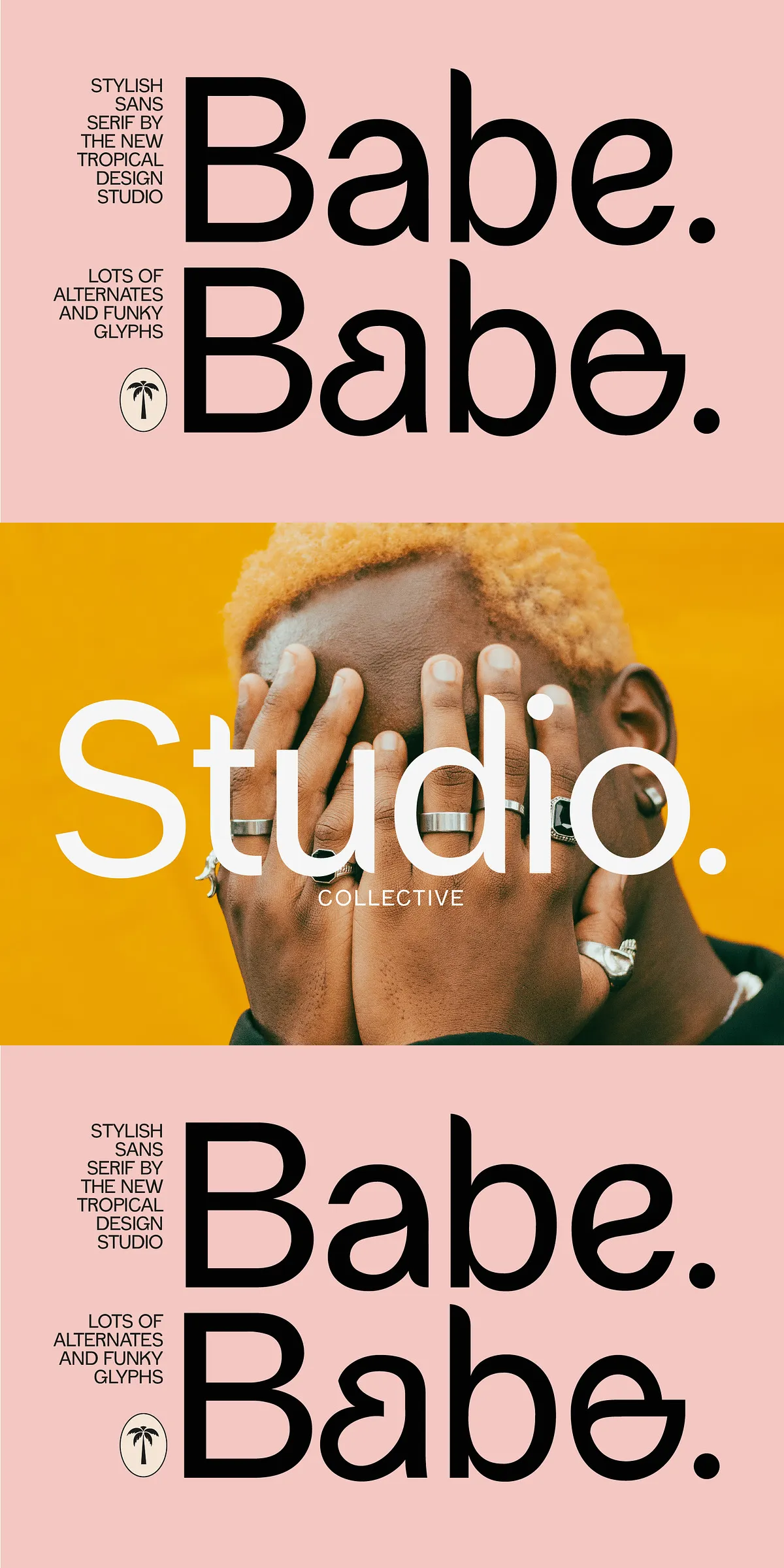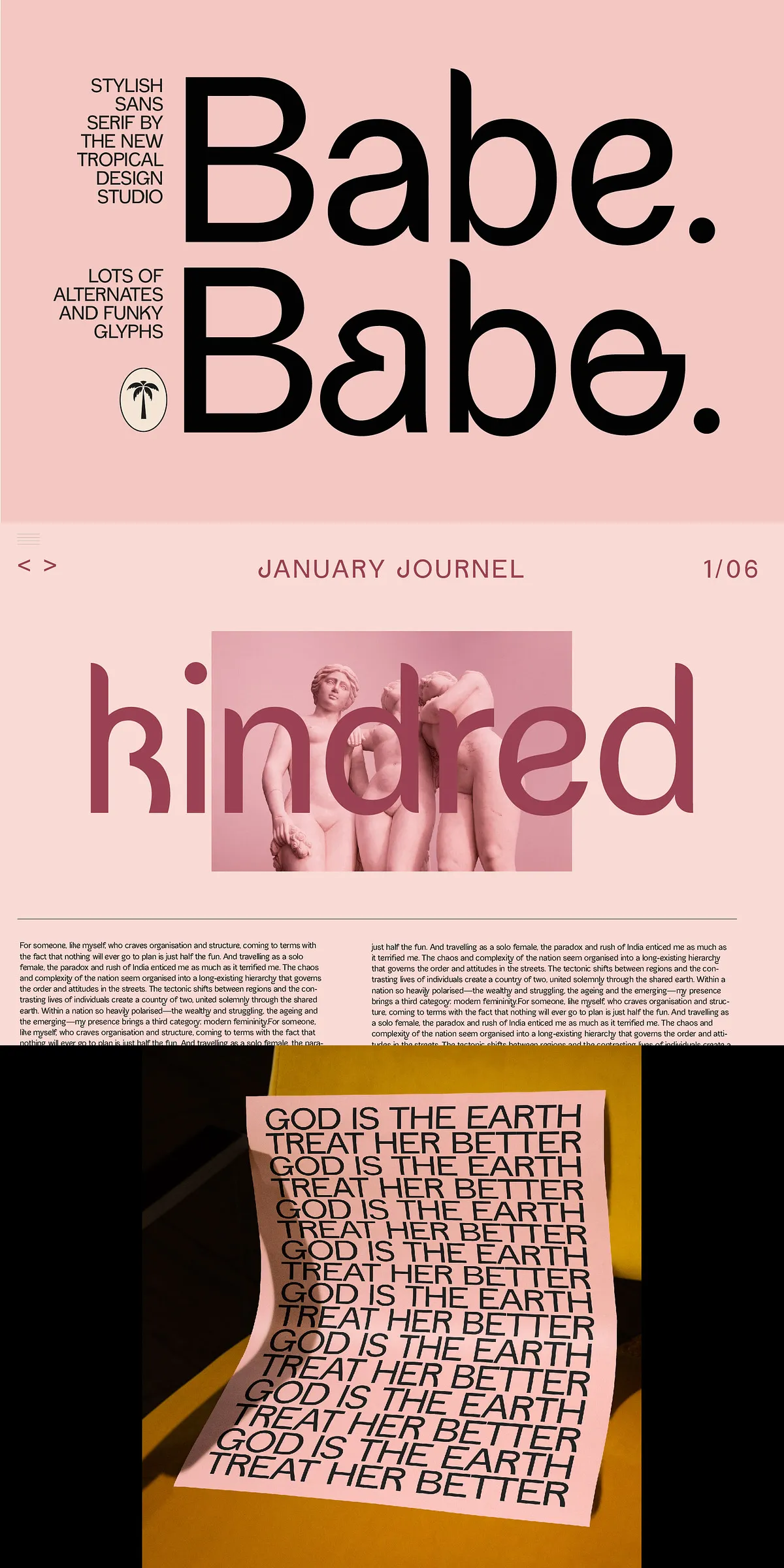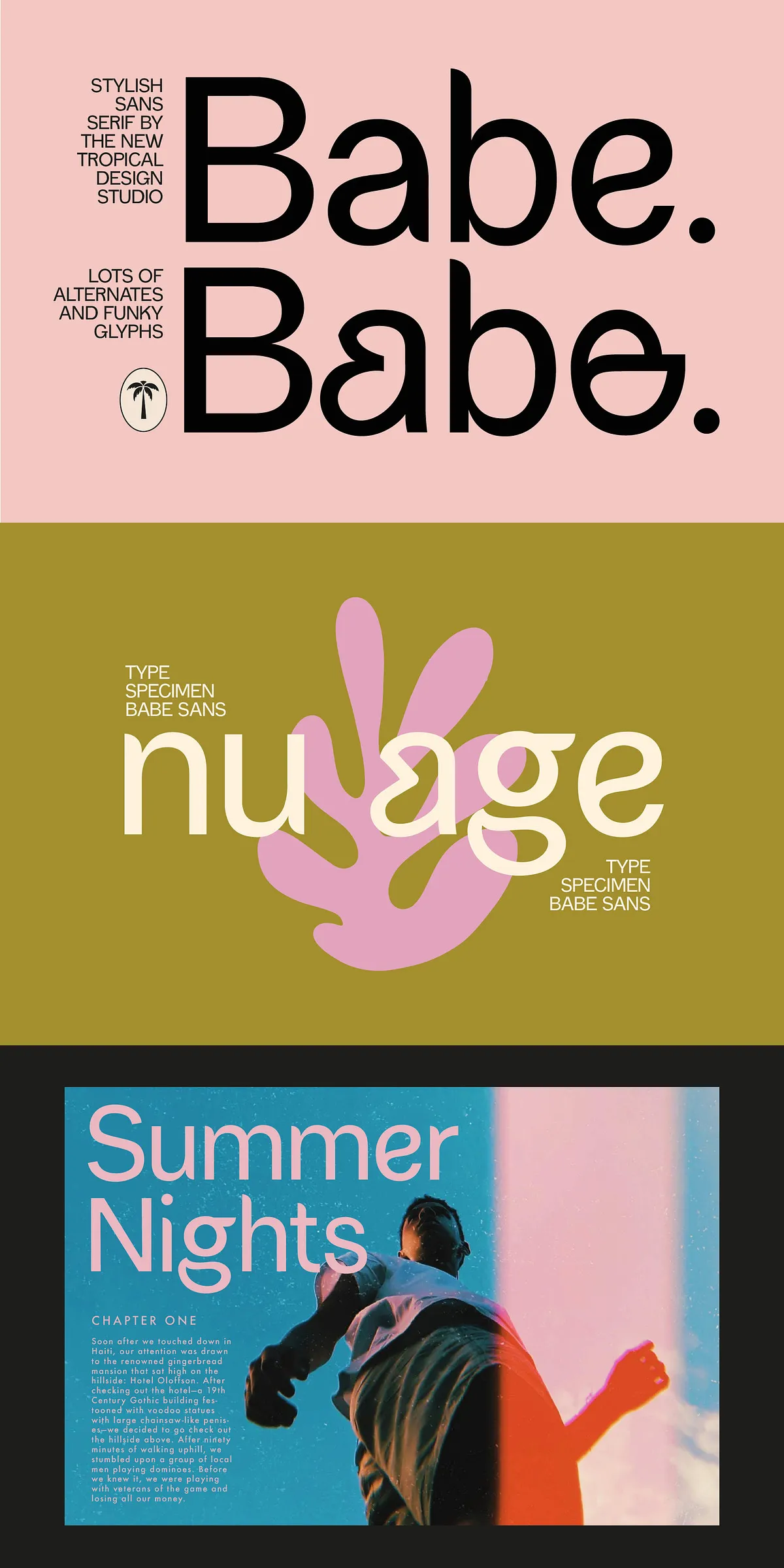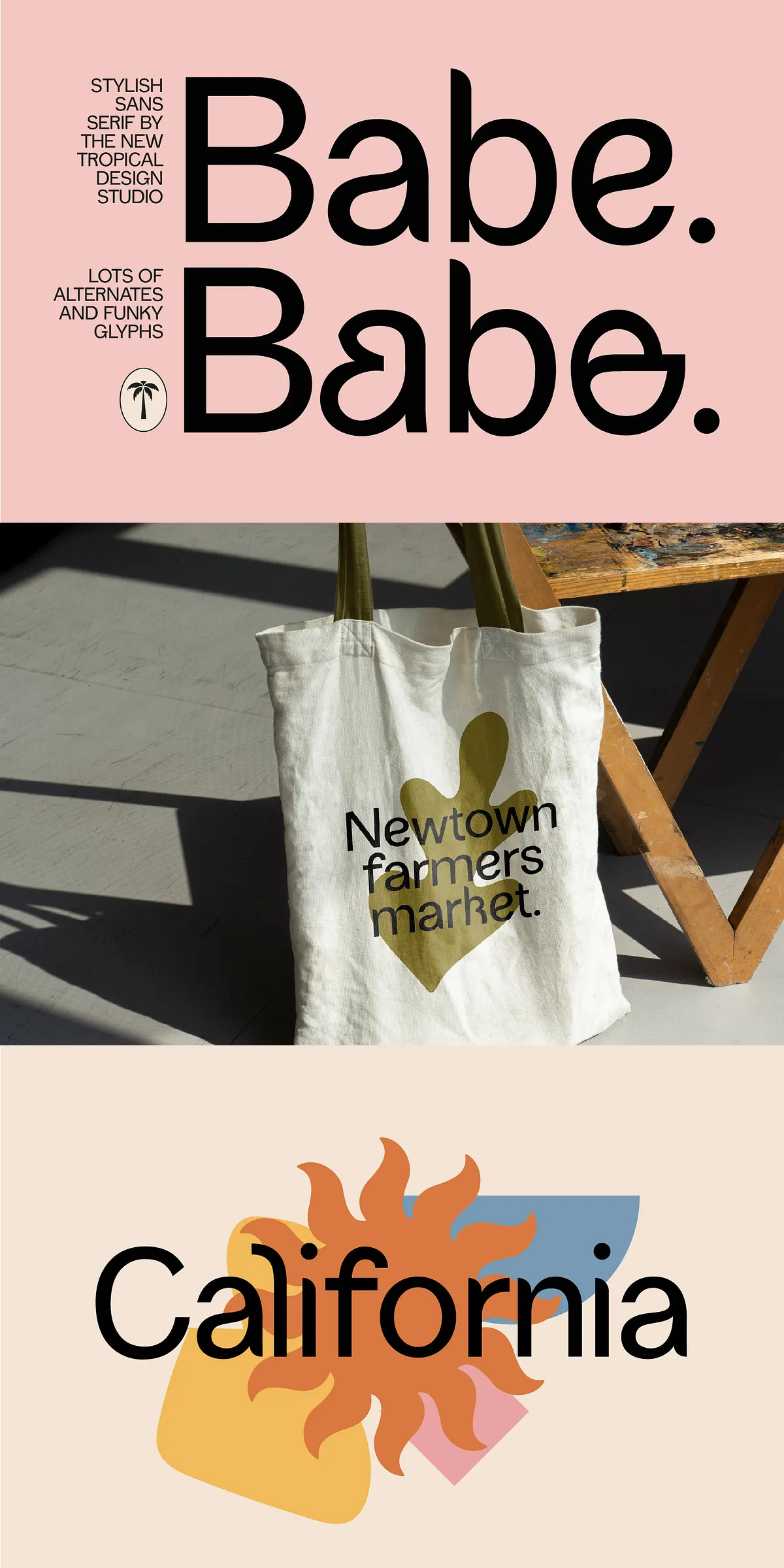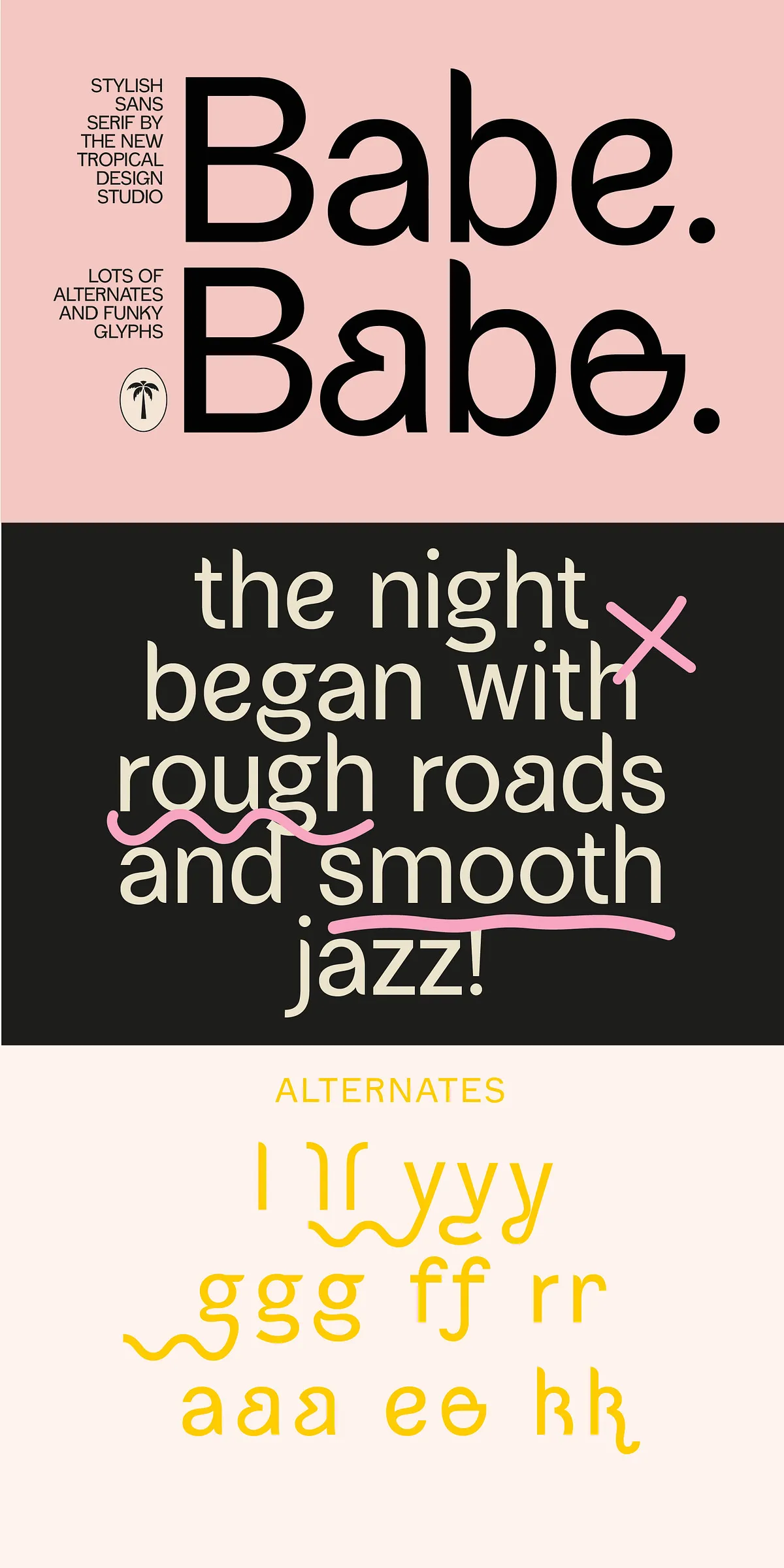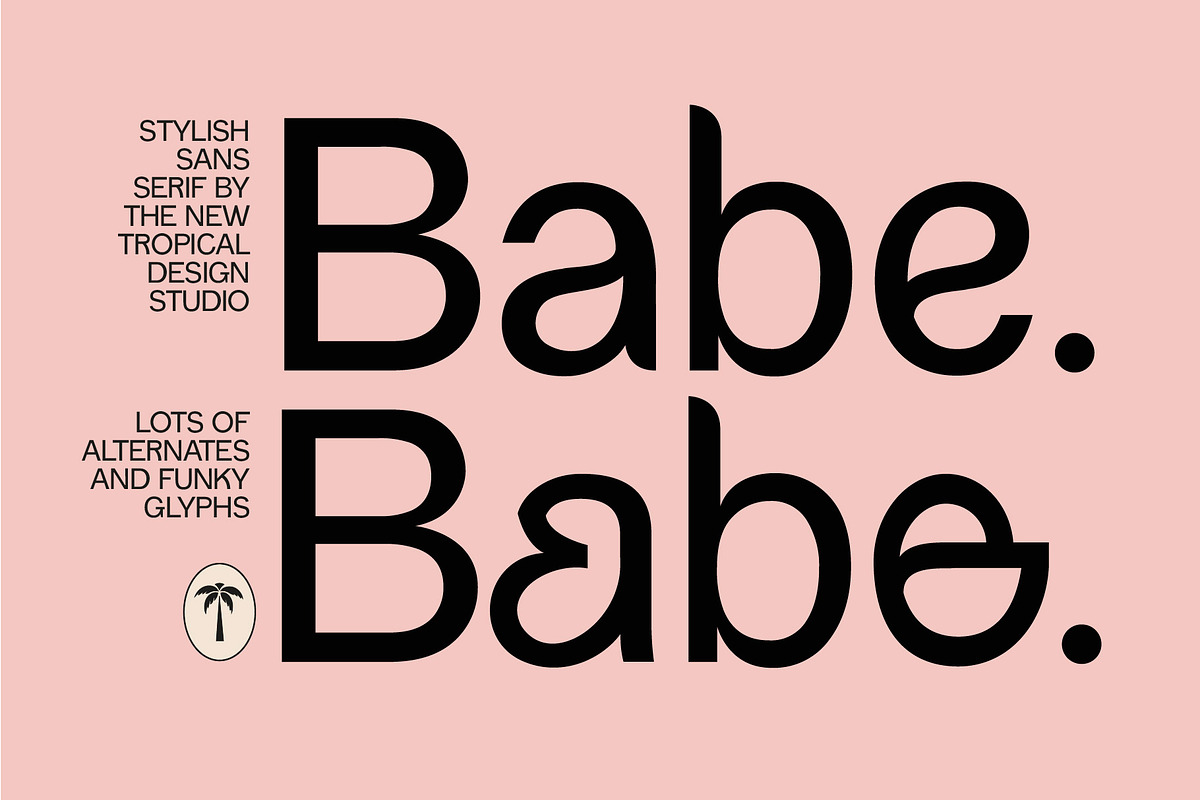
Meet Babe Sans—a font that doesn’t just stand out. It commands attention. Clean, confident, and full of personality, Babe Sans blends the timeless elegance of a classic sans-serif with a playful, modern edge that’s impossible to ignore. She’s not just a font. She’s a statement.
Curves That Dance, Styles That Wow
What makes Babe Sans unforgettable? Her groovy, fluid curves. Every letterform is crafted with rhythm and movement—like a dance between structure and spontaneity. The rounded terminals, soft transitions, and deliberate weight distribution give each character a sense of motion, energy, and charm.
But it’s not just about looks. Babe Sans gives you real creative power. With a full set of funky alternates, you can instantly transform any text into a unique visual experience. Swap out standard letters for stylish variants, create dynamic headlines, or add personality to logos, packaging, and social media content.
Engineered for Impact: Features That Deliver
Babe Sans is more than stylish—it’s built for real-world design. With support for uppercase letters, numerals, punctuation, and full glyph coverage, she handles everything from brand names to technical copy with ease.
- True multilingual support: Includes Latin, Greek, and full Cyrillic coverage—perfect for global projects. Yes, even Polish diacritics are included and properly rendered.
- OpenType features: Access ligatures, stylistic sets, alternates, and fractions directly through design tools like Illustrator, Photoshop, and Figma.
From Branding to Web Design: Where Babe Sans Shines
Whether you’re building a trendy fashion label, launching a lifestyle brand, or designing a bold web interface, Babe Sans brings a fresh, youthful, and confident tone to every project.
Use her for:
- Brand logos and name plates
- Headlines and marketing banners
- Instagram and Pinterest graphics
- Website headers and call-to-action buttons
- App interfaces that feel human and fun
She’s bold enough for impact, gentle enough for elegance—perfect wherever personality matters.
Why “Babe”? Because Confidence Is Stylish
The name Babe Sans isn’t just cute—it’s intentional. It celebrates individuality, self-expression, and the power of design to convey attitude. She’s not trying to be the quietest font in the drawer. She wants to be seen. To be remembered. To be loved.
So if you’re tired of fonts that blend into the background, step into the spotlight with Babe Sans. She’s not just modern. She’s **memorable**. Not just legible. She’s **charming**. Not just functional. She’s freaking cool.
Give your designs the confidence they deserve. Choose Babe Sans—where every letter tells a story, and every word leaves a mark.